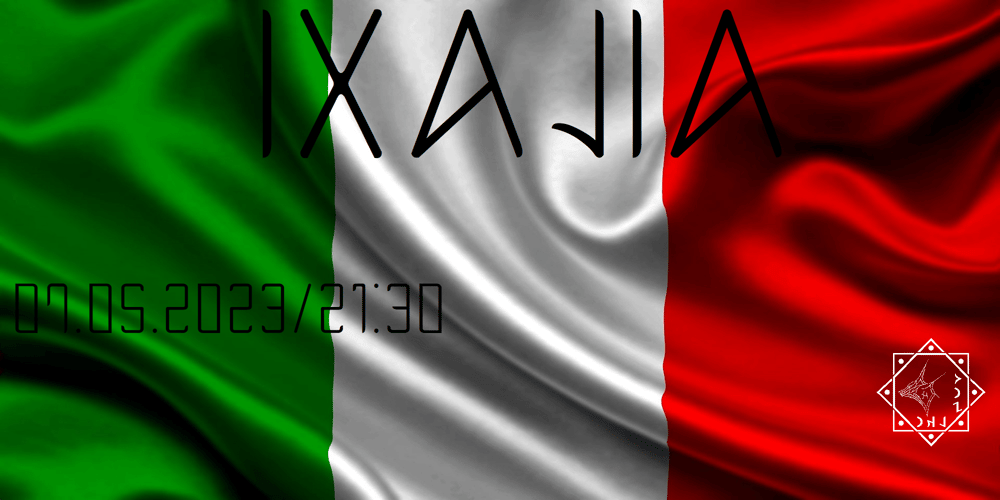
Ongunkan Rhaetian Script
Ongunkan Rhaetian Script font
Ongunkan Rhaetian Script Font Family was designed by Osman Nuri ALKAN and published by Runic World Tamgacı. Ongunkan Rhaetian Script contains 1 styles and family package options. Rhaetic or Raetic (/ˈriːtɪk/), also known as Rhaetian, was a Tyrsenian language spoken in the ancient region of Rhaetia in the eastern Alps in pre-Roman and Roman times. It is documented by around 280 texts dated from the 5th up until the 1st century BC, which were found through northern Italy, southern Germany, eastern Switzerland, Slovenia and western Austria, in two variants of the Old Italic scripts. Rhaetic is largely accepted as being closely related to Etruscan.